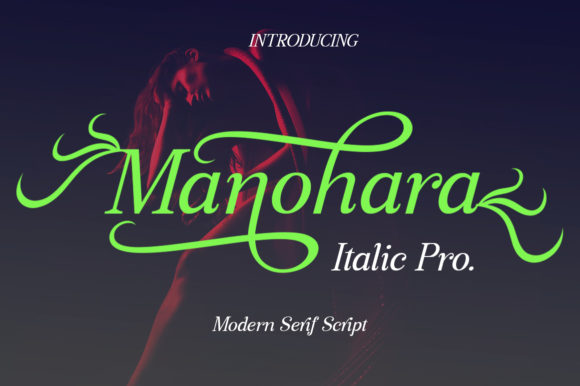
Indulge in an Elegant Journey with Manohara Pro Italic: A Stroke of Creative Brilliance
Embark on an elegant typographic journey with Manohara Pro Italic, a captivating serif font that breathes life into your digital creations. Crafted by the skilled hands of bbakey, this italicized masterpiece exudes a sophisticated charm that will leave you spellbound.
Unleash your creativity and let the flowing curves of Manohara Pro Italic dance across your screens. Its graceful lines and delicate flourishes evoke a sense of timeless beauty, making it the perfect choice for projects that demand a touch of elegance and refinement.
Transport your readers to a world of sophistication with Manohara Pro Italic. Whether you're designing logos, crafting invitations, or creating social media posts, this font will elevate your designs to new heights of visual appeal. Its versatility extends to web design, where it effortlessly enhances the user experience with its readability and clarity.
Let Manohara Pro Italic be your creative muse. Immerse yourself in its alluring curves and let your imagination soar. This font will effortlessly elevate your designs, captivating audiences with its timeless allure.